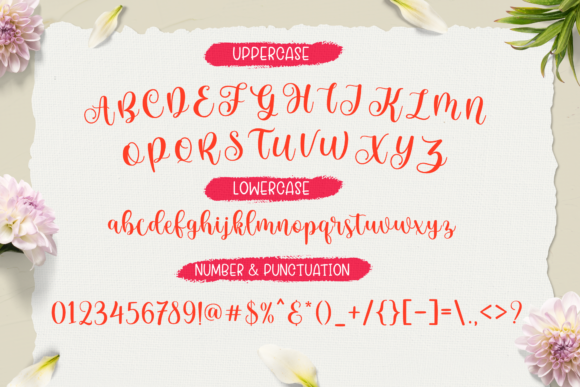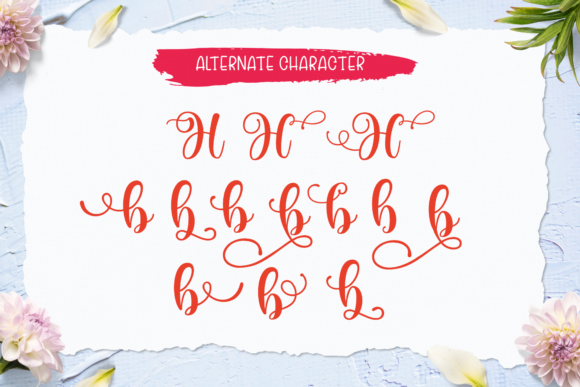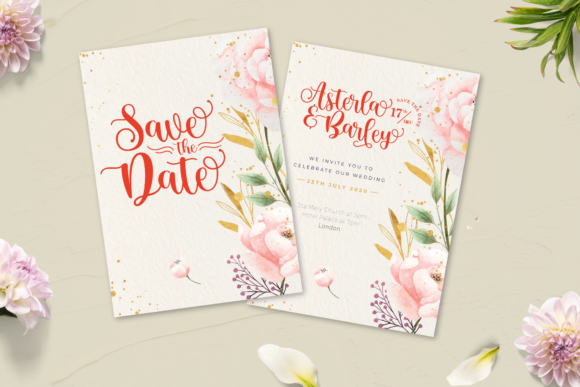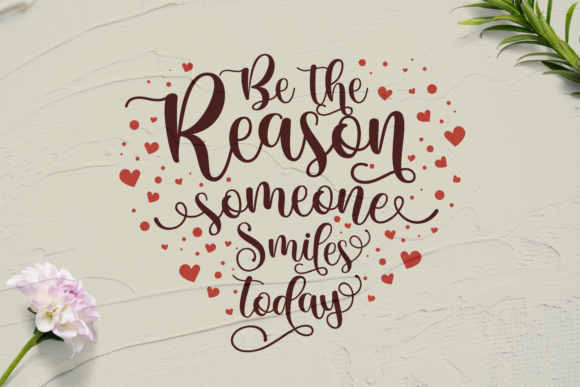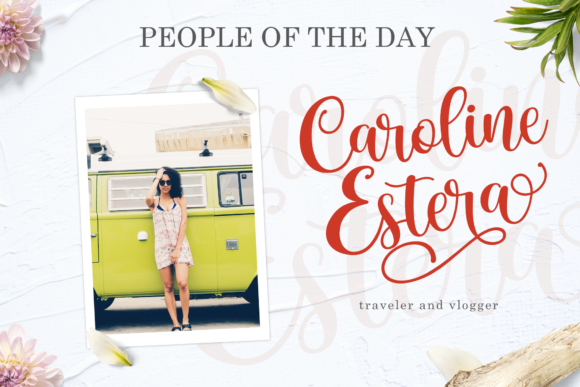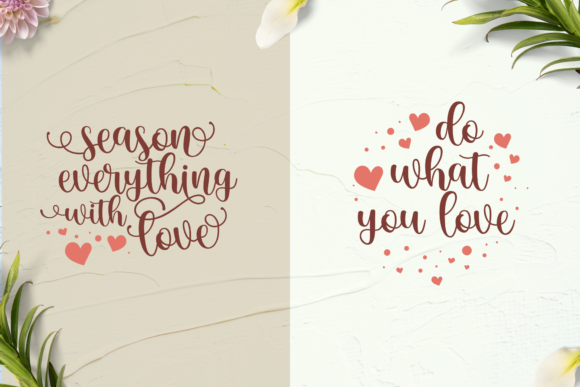
Introducing Beloved Hearts Font: Elevate Your Designs with Elegance
Are you on the hunt for a font that exudes elegance, sophistication, and a touch of whimsy? Look no further than the Beloved Hearts Font, a stunning handwritten typeface that’s sure to capture your heart. This beautiful font is designed to add a touch of luxury to your designs, making it perfect for crafters, designers, and anyone looking to elevate their creative projects.
What Makes Beloved Hearts Font So Special?
Beloved Hearts Font is an elegant and flowing handwritten font that boasts a range of features that set it apart from other typefaces. Here are just a few reasons why you’ll fall in love with this font:
- PUA Encoding: Beloved Hearts Font is PUA (Private Use Area) encoded, which means you can access all of the glyphs and swashes with ease. This makes it simple to add a touch of personality to your designs.
- Varying Baseline: The font features a varying baseline, which gives it a sense of movement and fluidity. This creates a beautiful, organic feel that’s perfect for designs that need a touch of whimsy.
- Smooth Lines and Gorgeous Glyphs: The lines are smooth, and the glyphs are gorgeous, making this font perfect for designs that require a high level of elegance and sophistication.
- Stunning Alternates: Beloved Hearts Font also features stunning alternates, which give you even more options for customizing your designs.
A Perfect Blend of Classic and Contemporary
Beloved Hearts Font strikes the perfect balance between classic calligraphic influences and modern freshness. The font maintains its classy, elegant feel while still feeling contemporary and fresh. This makes it perfect for designers and crafters who want to create designs that are both timeless and on-trend.
Use Beloved Hearts Font to Elevate Your Designs
Whether you’re working on a branding project, creating social media graphics, or designing a beautiful wedding invitation, Beloved Hearts Font is the perfect choice. This versatile font can be used for a wide range of projects, including:
- Branding and Logos: Create a lasting impression with a beautiful, elegant logo that showcases your brand’s personality.
- Social Media Graphics: Add a touch of sophistication to your social media graphics, including Facebook posts, Instagram stories, and Twitter headers.
- Wedding Invitations and Stationery: Create beautiful, elegant wedding invitations, stationery, and other paper goods that will leave a lasting impression.
- Packaging and Product Design: Add a touch of luxury to your packaging and product designs, making them stand out on store shelves.
In conclusion, Beloved Hearts Font is a stunning handwritten typeface that’s perfect for designers and crafters who want to add a touch of elegance and sophistication to their designs. With its PUA encoding, varying baseline, smooth lines, gorgeous glyphs, and stunning alternates, this font is sure to capture your heart. So why wait? Download your free copy of Beloved Hearts Font today and start creating beautiful, elegant designs that will leave a lasting impression.